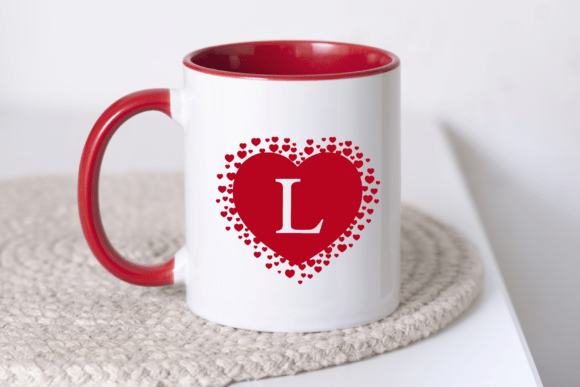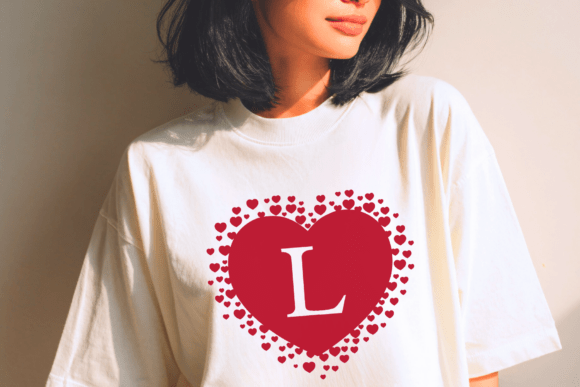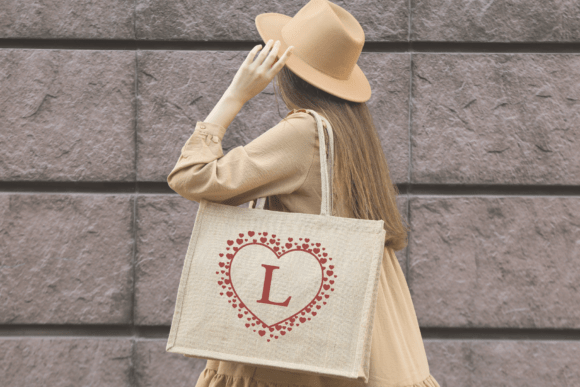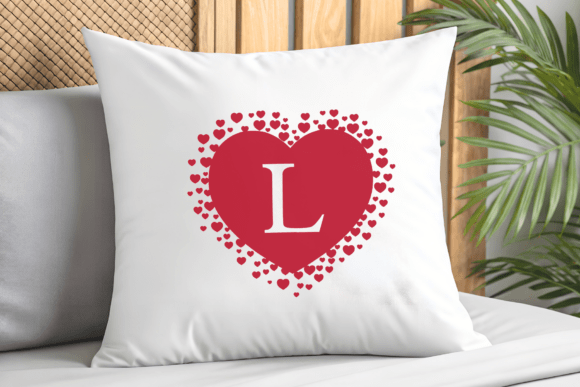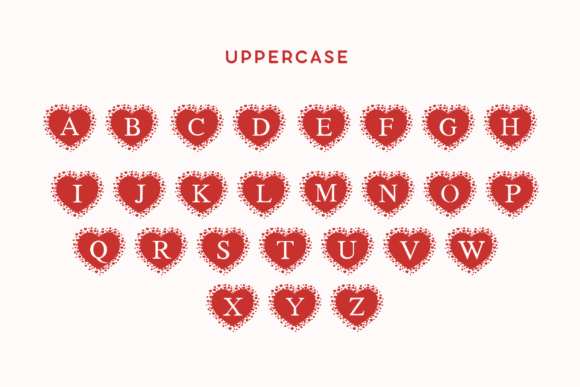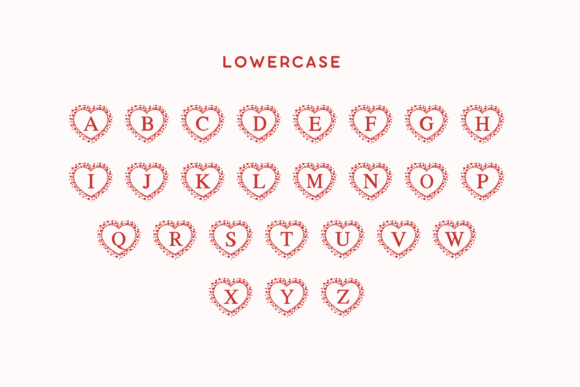
Cute Heart Font: The Perfect Addition to Your Valentine’s Day Projects
Are you looking for a special font to make your Valentine’s Day projects stand out? Look no further than the Cute Heart Monogram Font, a romantic heart-shaped monogram alphabet designed especially for this day of love. This decorative font is perfect for love designs, Valentine cards, wedding invitations, couple gifts, stickers, t-shirts, mugs, and personalized crafts.
What is Cute Heart Monogram Font?
The Cute Heart Monogram Font is a unique and charming font that features heart-shaped monograms and initials. This font is specifically designed to add a touch of sweetness and romance to your Valentine’s Day projects. With its heart-shaped design, it’s the perfect way to express your love and affection through your designs.
Perfect for Valentine’s Day Projects
Valentine’s Day is just around the corner, and with the Cute Heart Monogram Font, you can create beautiful and romantic designs that will make your loved ones feel special. This font is perfect for:
- Valentine cards: Create personalized Valentine cards with your loved one’s initials or name in a beautiful heart-shaped monogram.
- Wedding invitations: Add a touch of romance to your wedding invitations with this stunning font.
- Couple gifts: Design personalized gifts such as mugs, t-shirts, and stickers with this adorable font.
- Personalized crafts: Add a special touch to your handmade crafts, such as jewelry, decorations, and home decor items.
Features of Cute Heart Monogram Font
The Cute Heart Monogram Font has several features that make it a must-have for designers and crafters:
- Heart-shaped design: The font features a unique heart-shaped design that adds a touch of romance and sweetness to your designs.
- Monogram alphabet: The font includes a complete monogram alphabet, making it easy to create personalized designs.
- Decorative: The font is perfect for decorative designs, such as wedding invitations, Valentine cards, and couple gifts.
Tips and Variations
Here are some tips and variations to help you get the most out of the Cute Heart Monogram Font:
- Use it for other occasions: While the font is perfect for Valentine’s Day, you can also use it for other occasions, such as anniversaries and birthdays.
The Cute Heart Monogram Font is a must-have for designers and crafters who want to create beautiful and romantic designs for Valentine’s Day. With its unique heart-shaped design and monogram alphabet, it’s the perfect way to add a touch of sweetness and charm to your designs. Whether you’re creating Valentine cards, wedding invitations, or couple gifts, this font is sure to make your designs stand out.